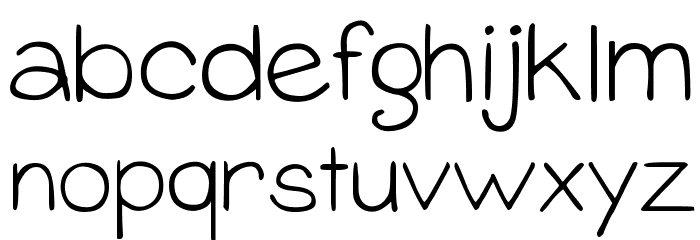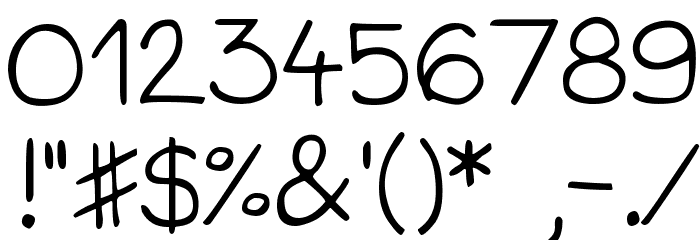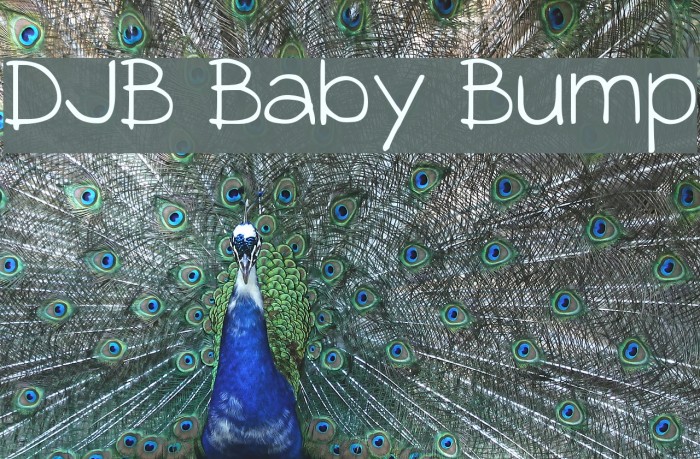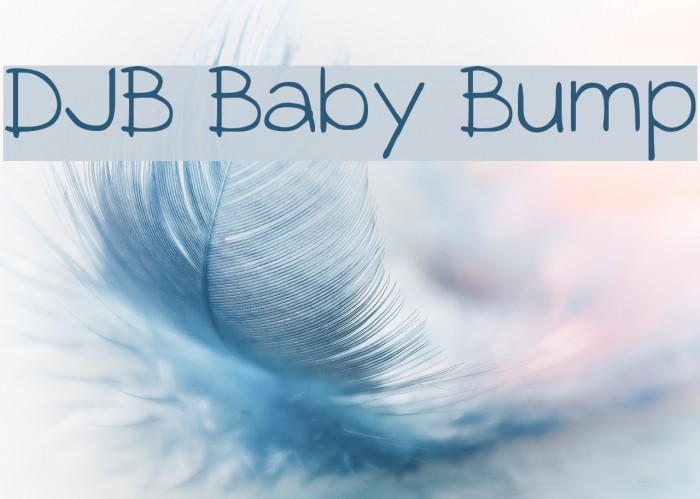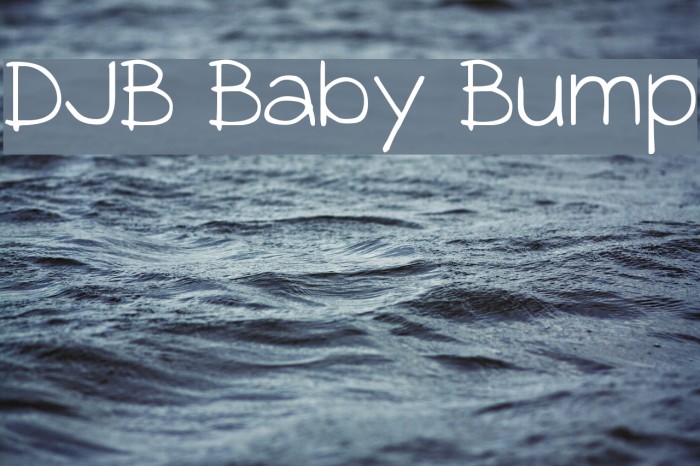
DJB Baby Bump Font
This playful and whimsical font features a handwritten style with rounded edges and a casual feel. The characters are slightly irregular, adding a charming and approachable quality. The uppercase letters are bold and prominent, while the lowercase letters maintain a consistent flow. Numbers and special characters are designed to match the playful aesthetic, making this font ideal for projects that require a friendly and informal touch. The overall design is clean and easy to read, with a touch of personality that makes it stand out.
A playful, handwritten font with rounded edges and a casual feel.
- Proposed Projects: Ideal for children's books, playful branding, greeting cards, and casual invitations.
- Category: Handwritten
- Overall Style: Playful
- Use Case: Headlines, Logos, Informal Text